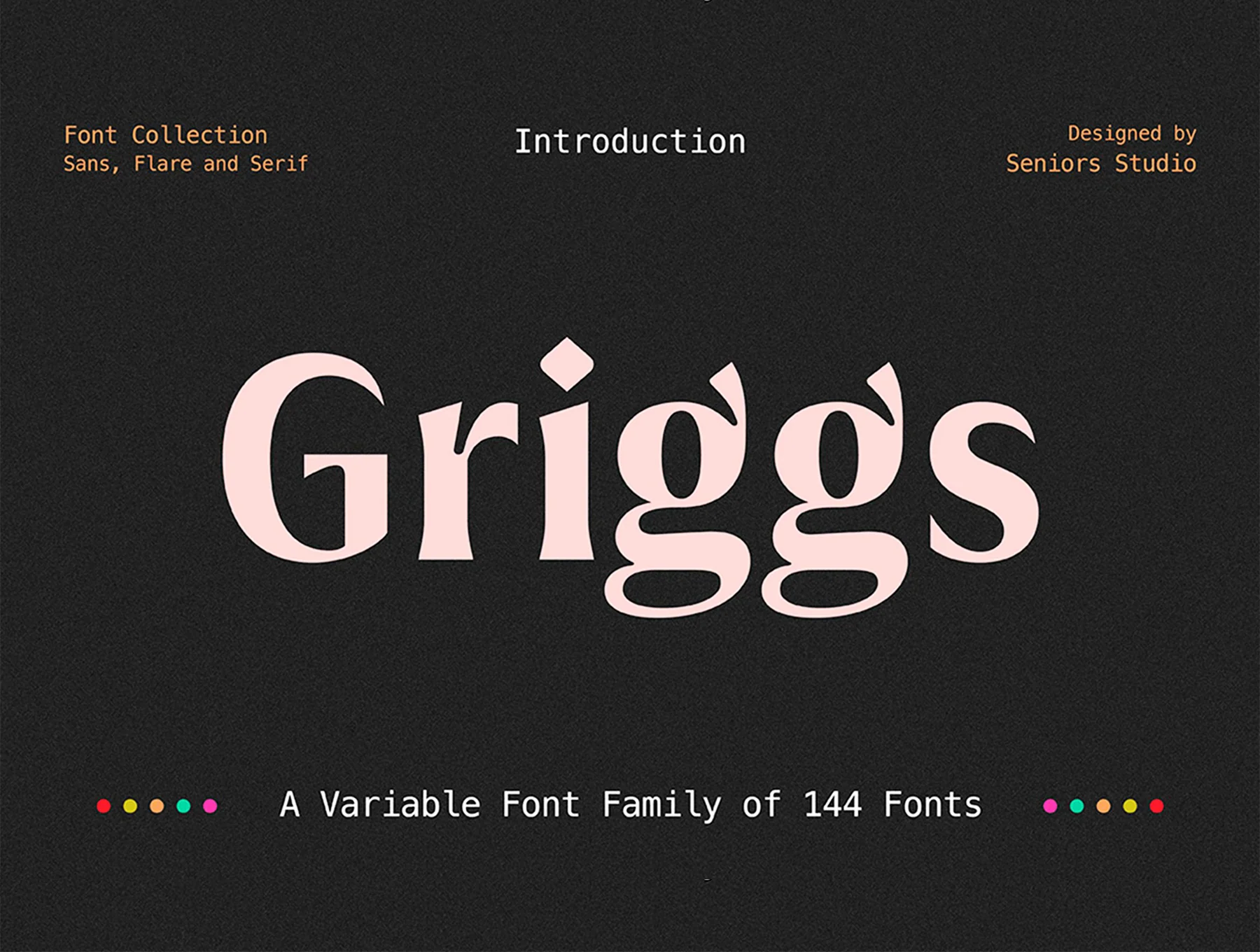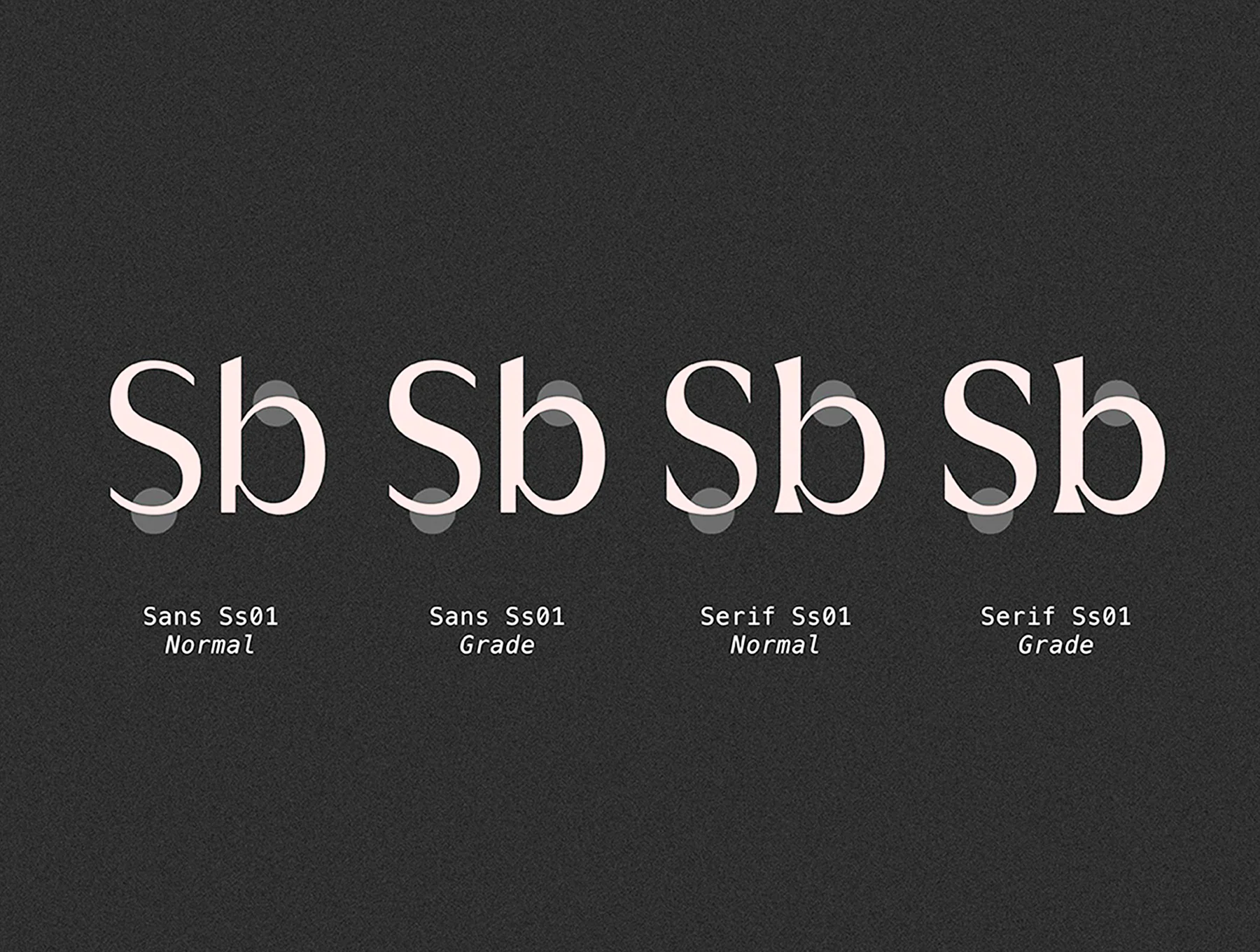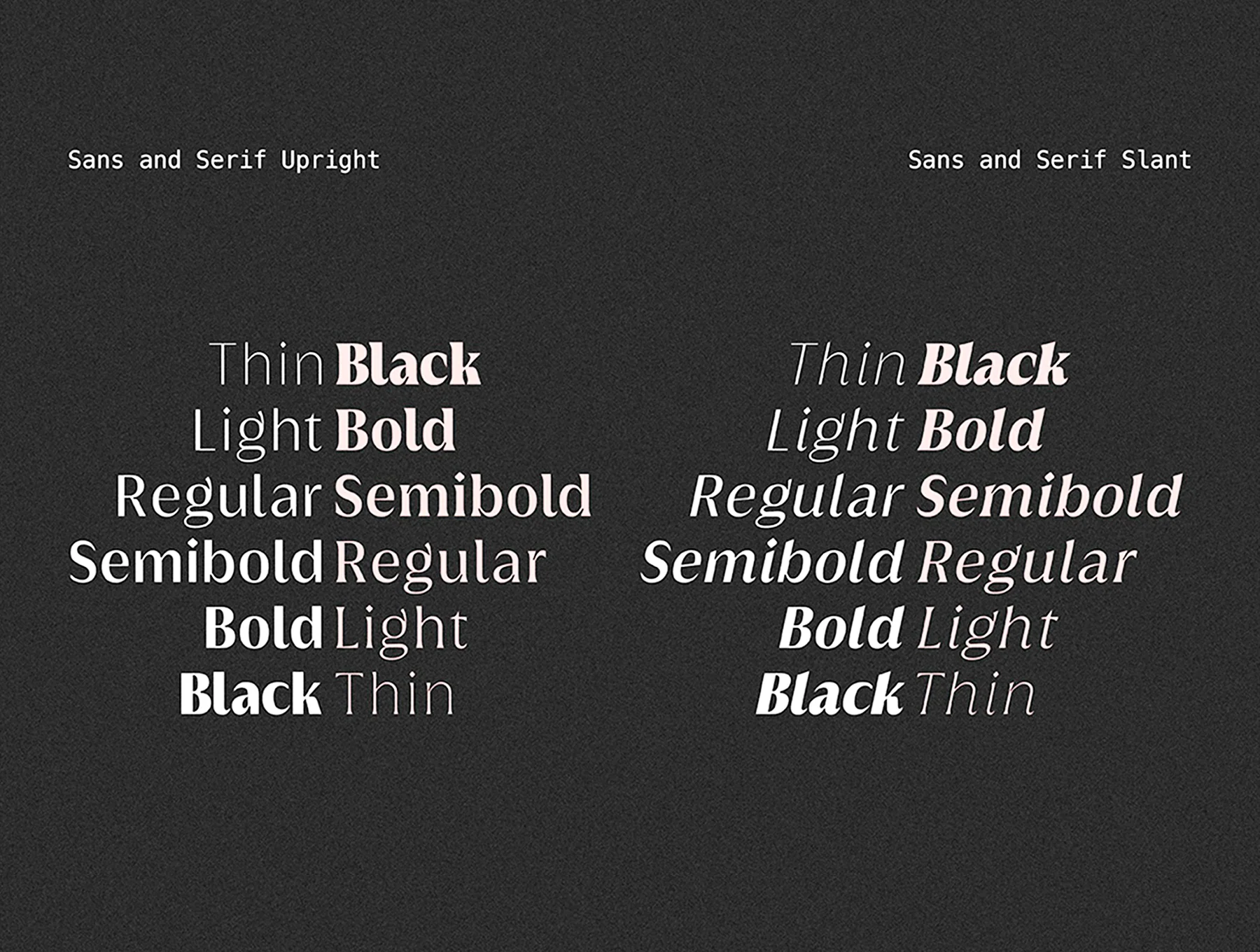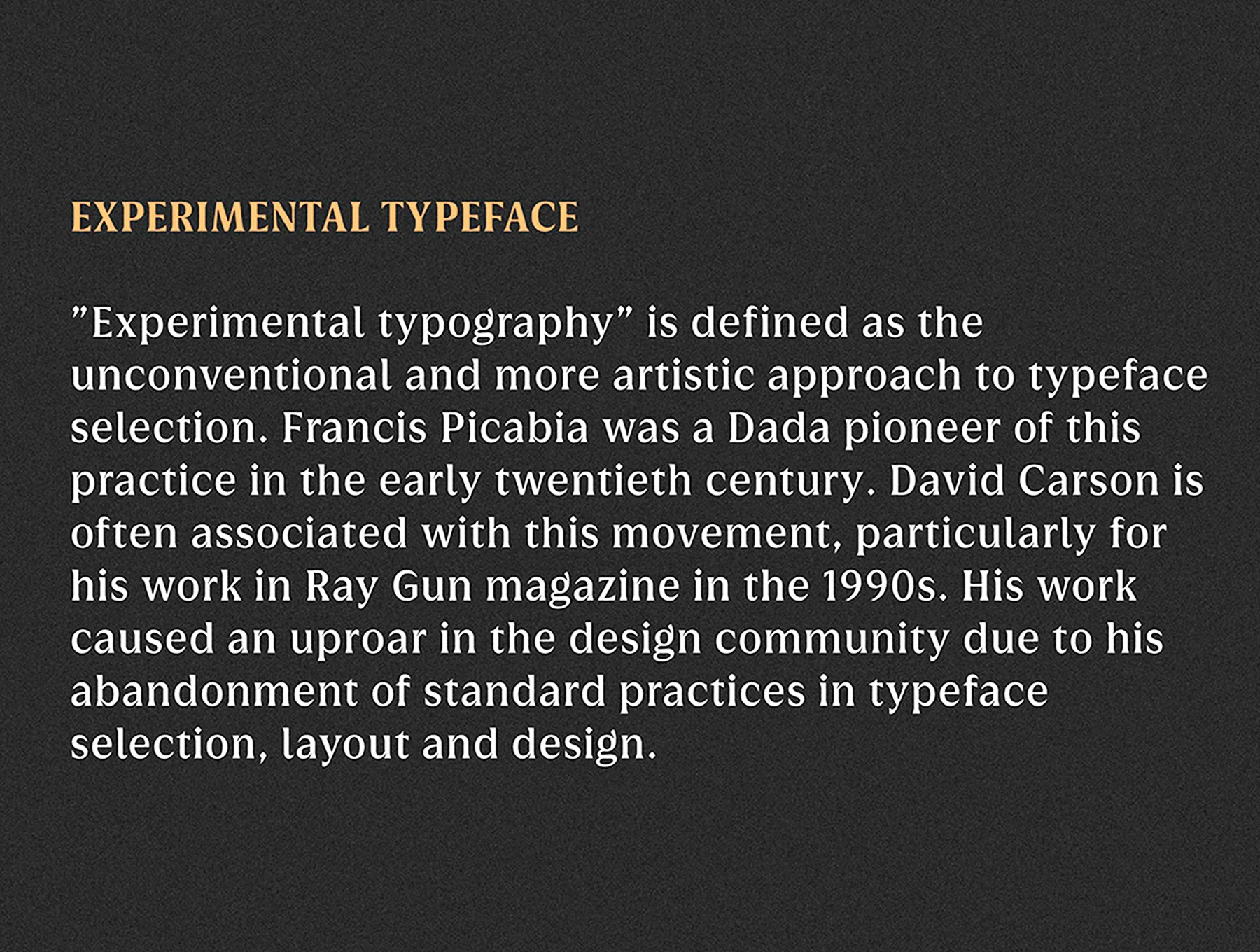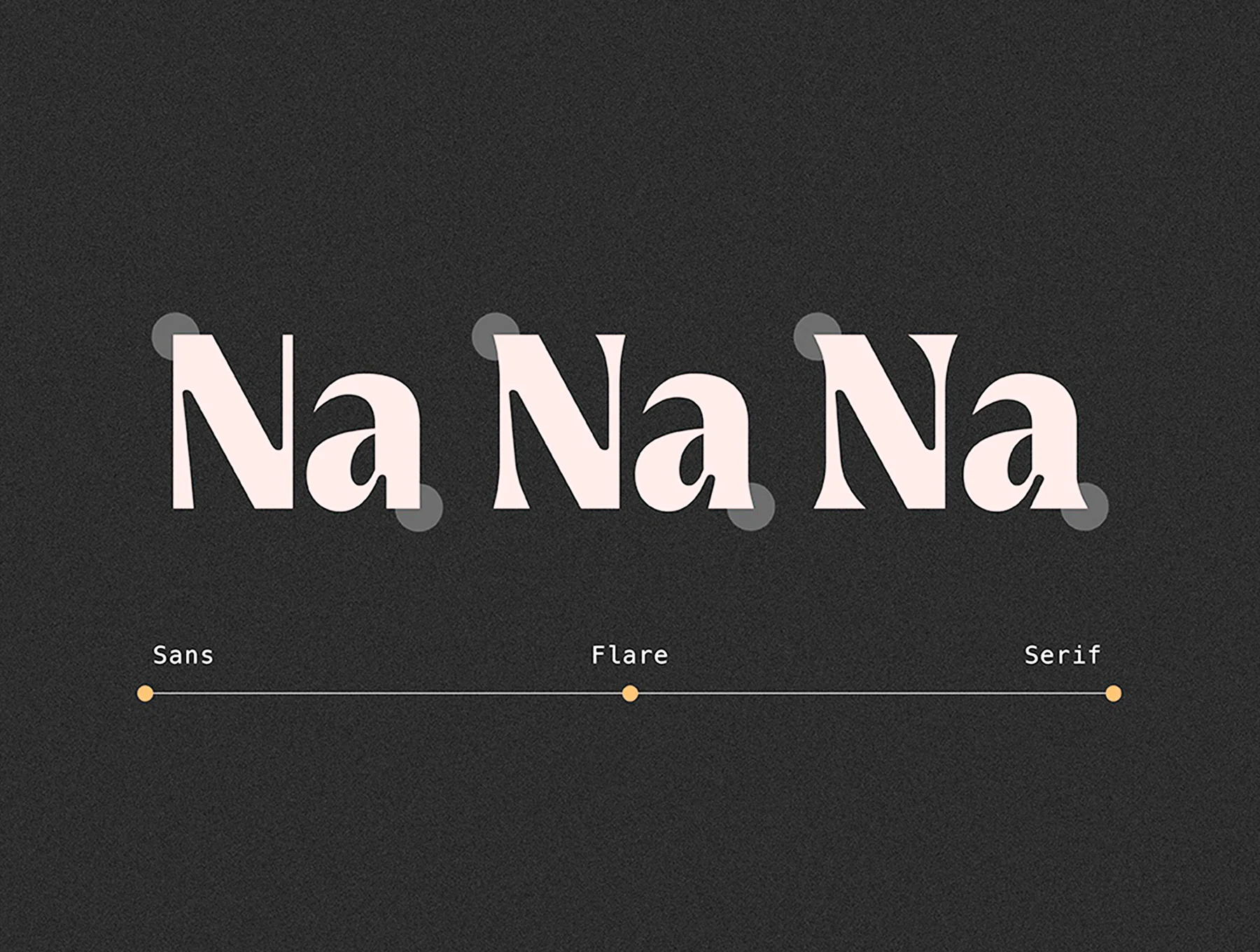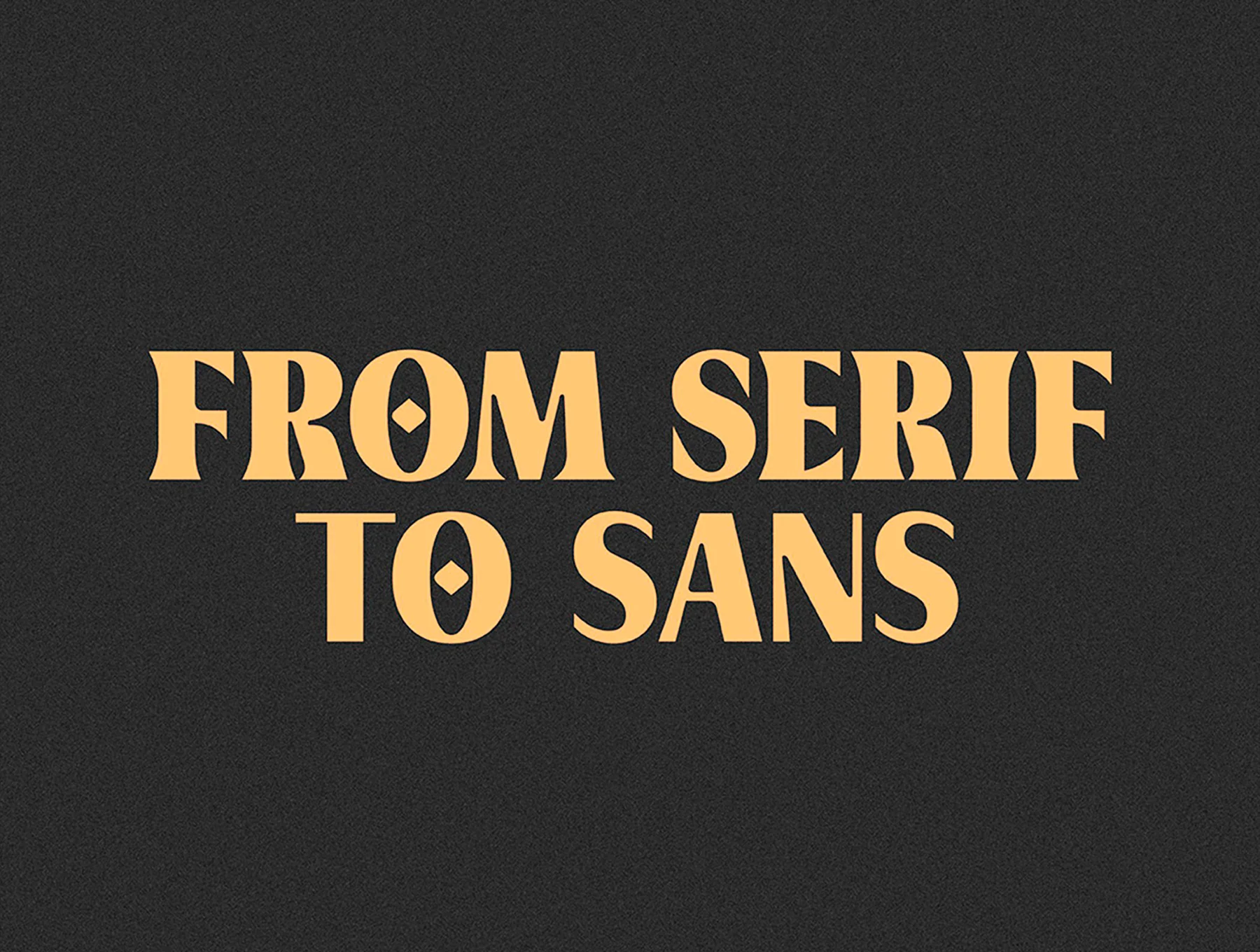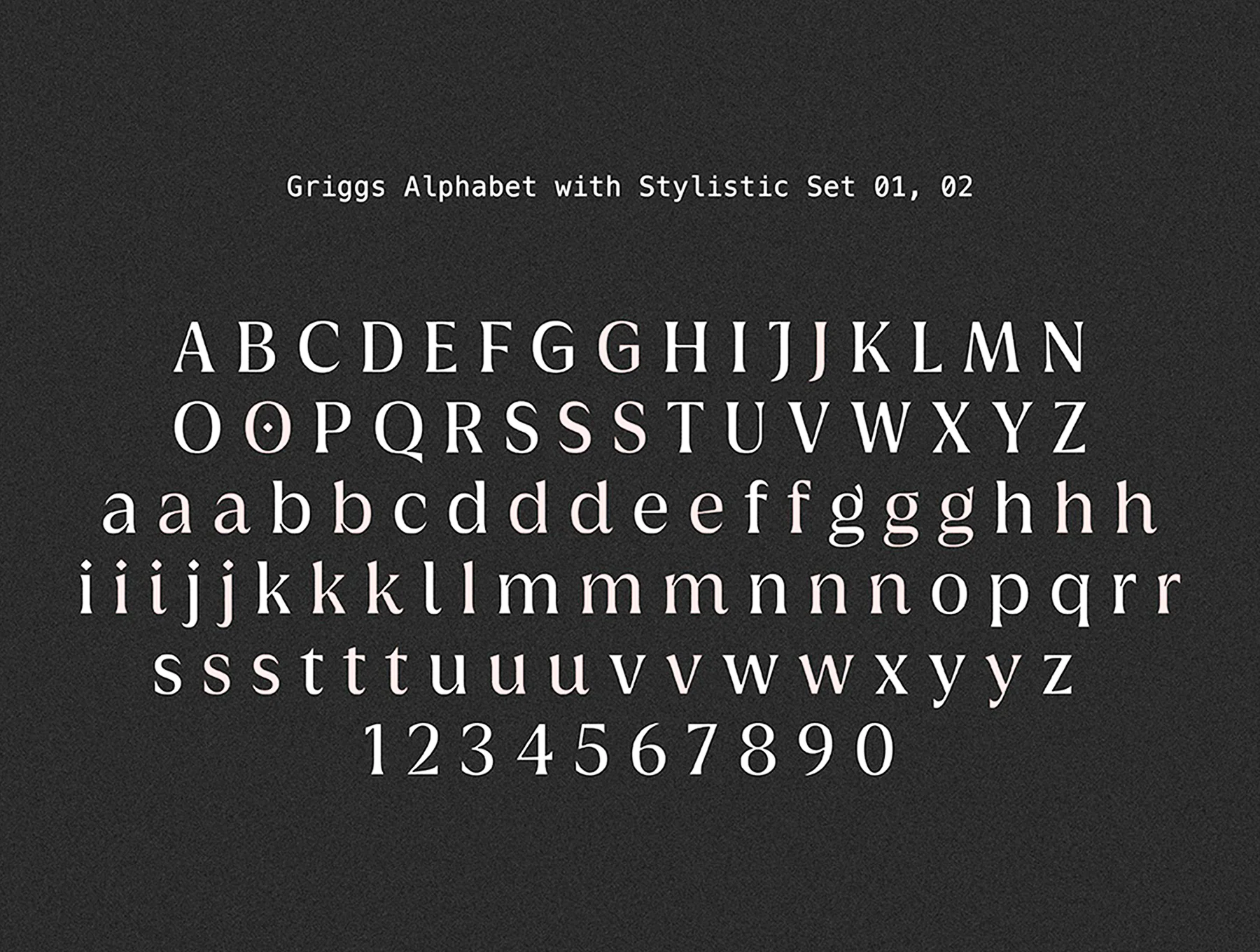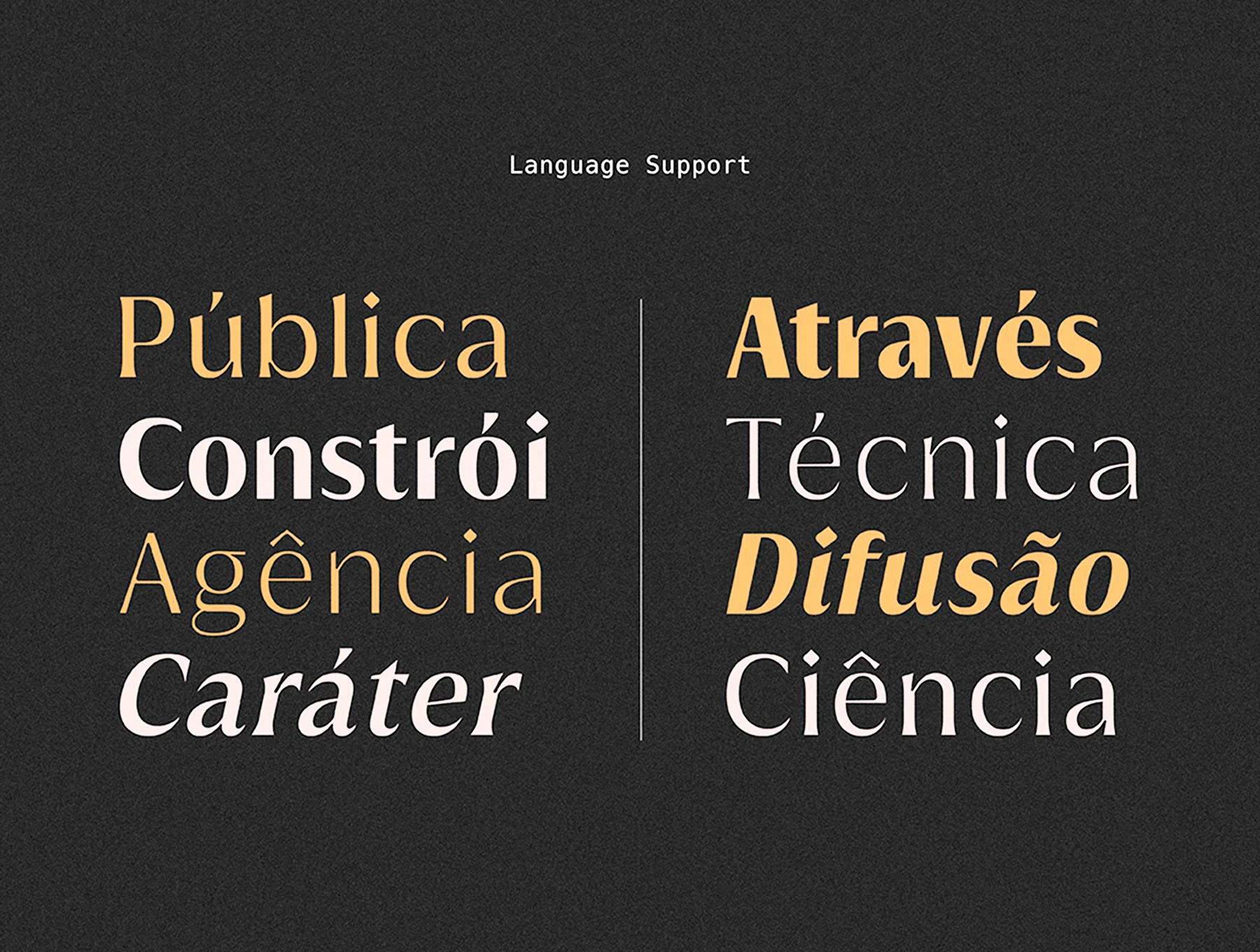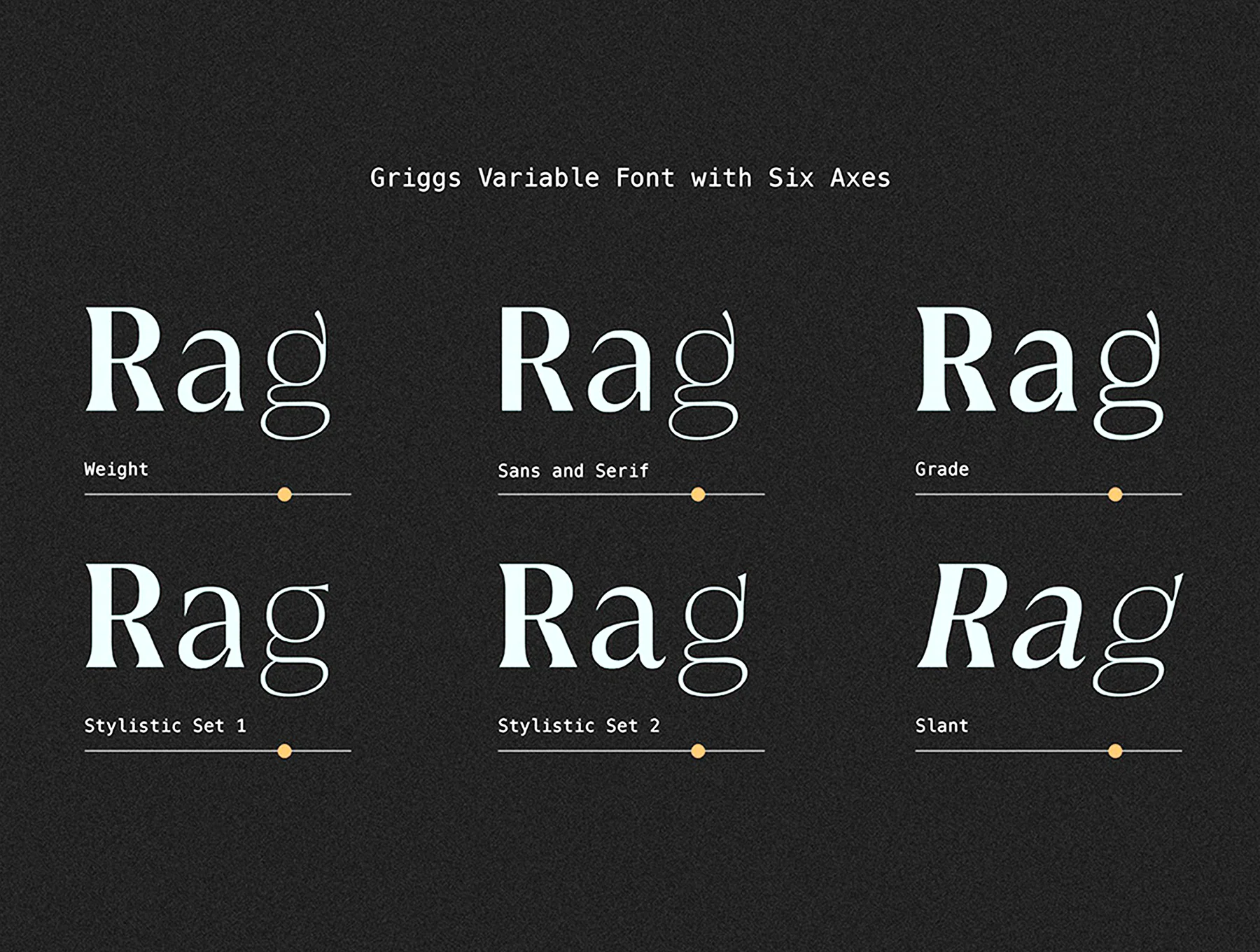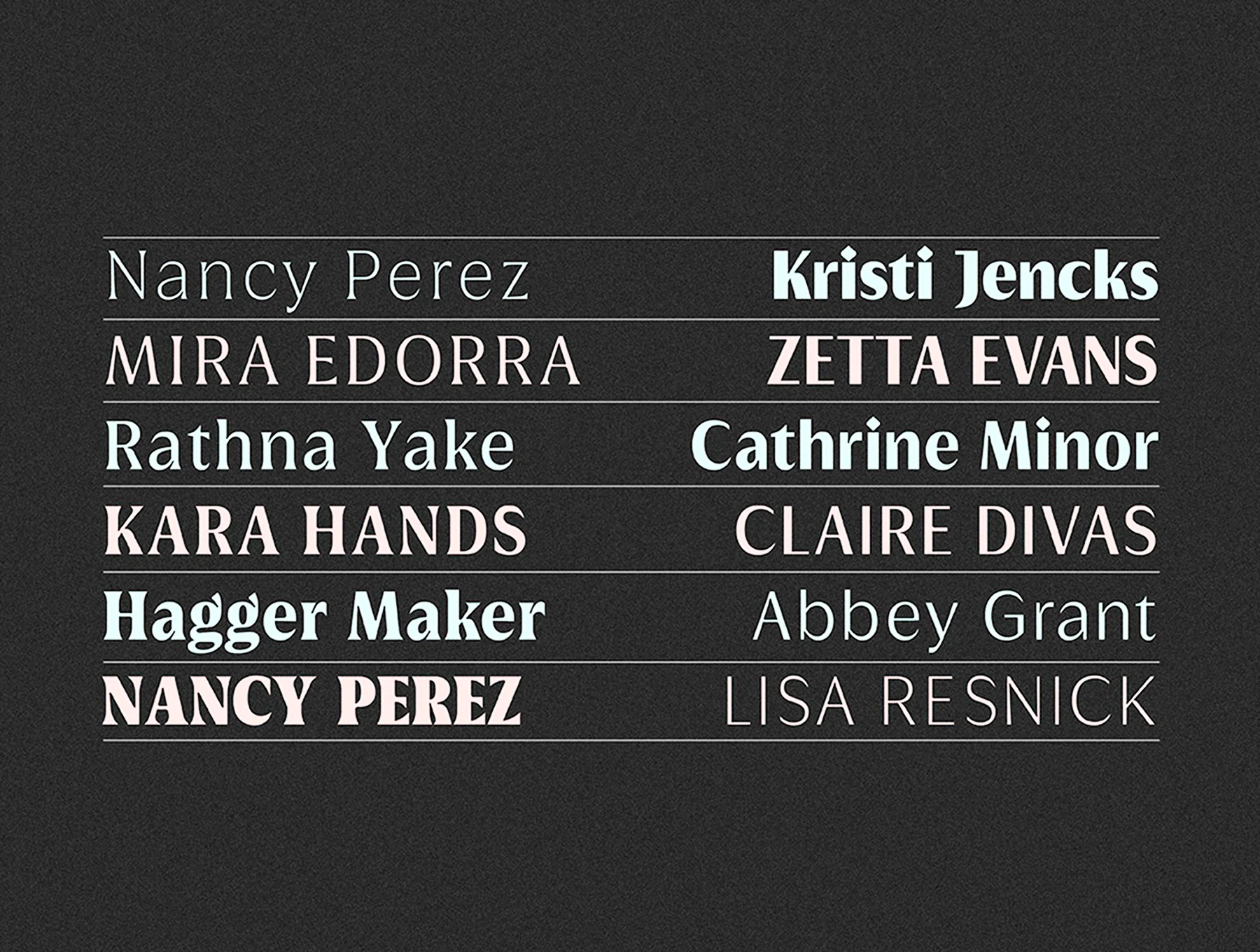
Griggs Variable Typeface
Griggs is a six-axis variable type family, offered in static and variable formats for broad design flexibility.
325 character glyphs
Three subfamilies: Sans, Flare, and Serif, each with 8 styles plus slant
Six weights: Thin, Light, Regular, Semi Bold, Bold, and Black
Full set: 144 styles with a variable font
Griggs is a six-axis variable type family with 145 fonts for $170 at 50% off. It spans Sans, Flare, and Serif styles, offering weight, serif, grade, stylistic set, and slant controls. With 325 glyphs, OpenType sets, kerning, autohinting, and Latin support, it suits branding, logos, editorial, display, packaging, and text use.